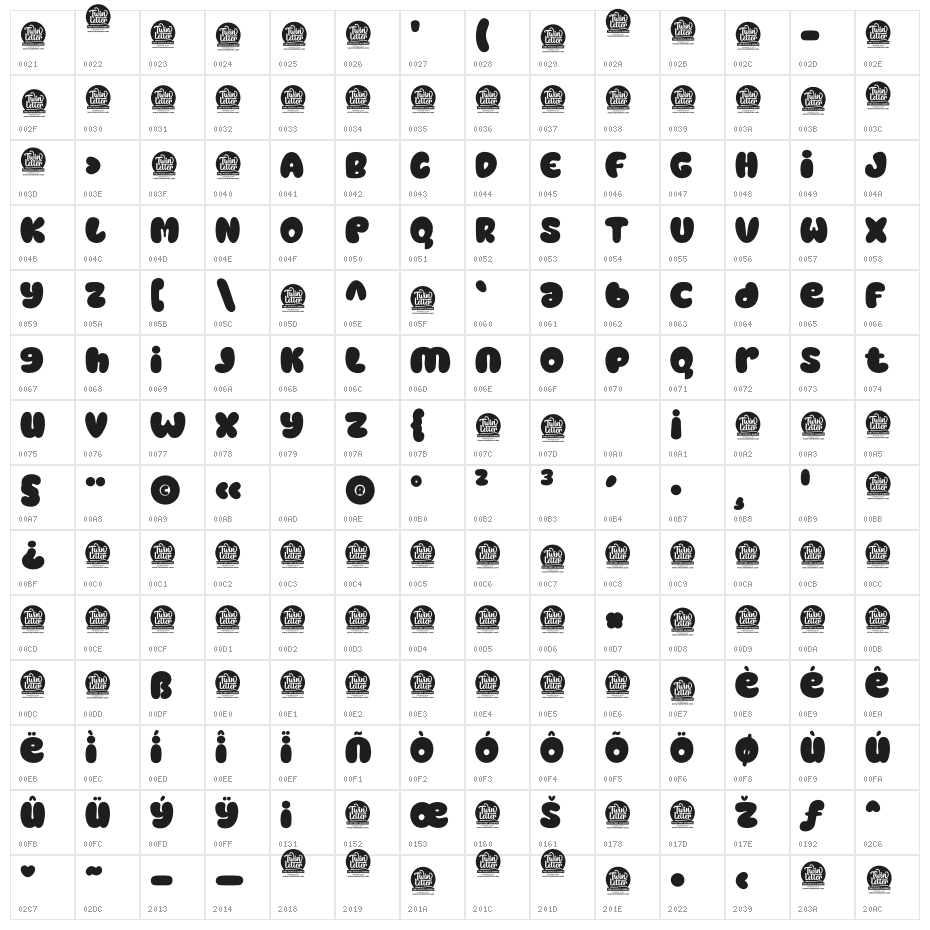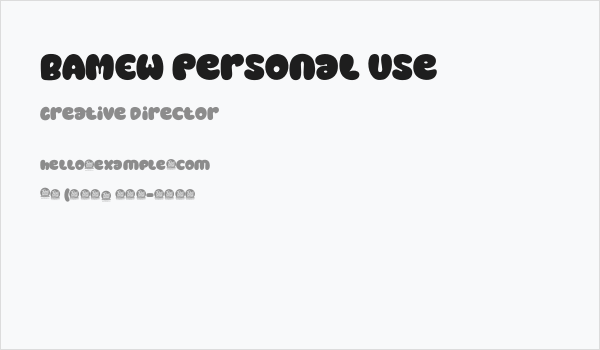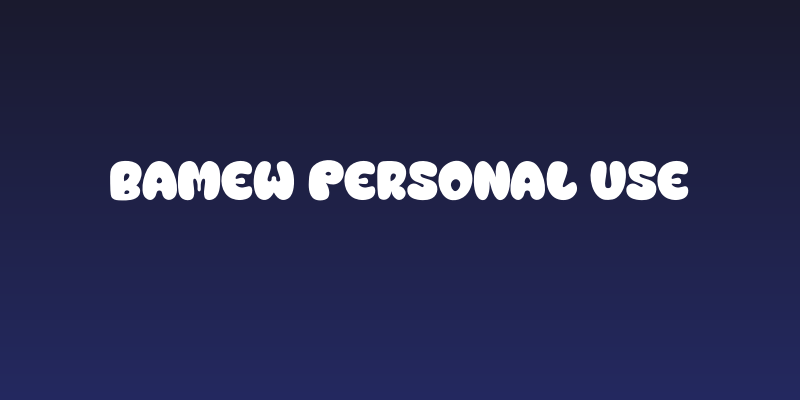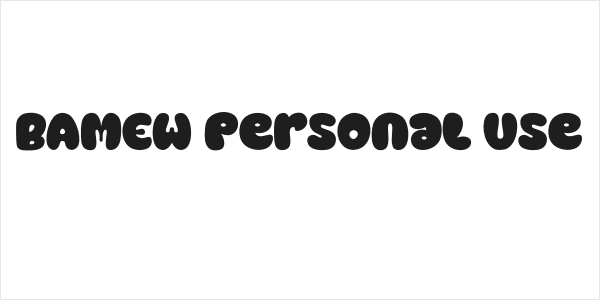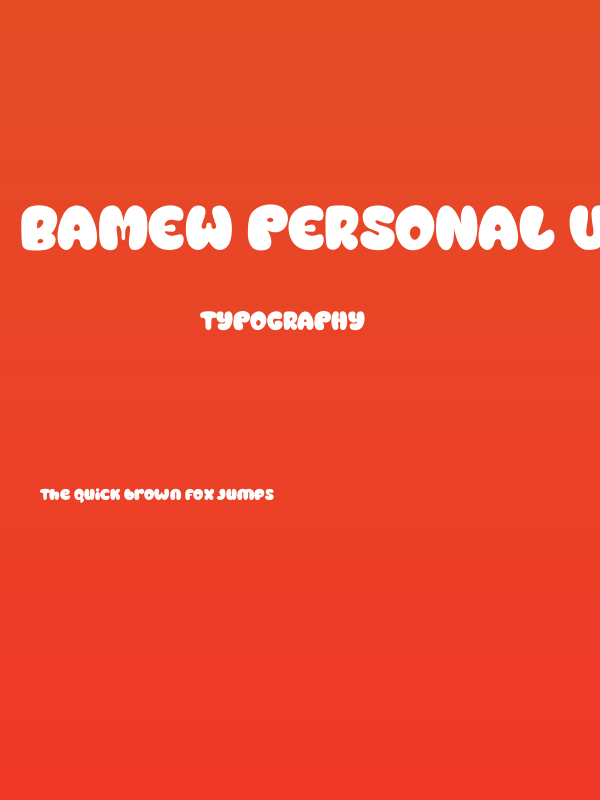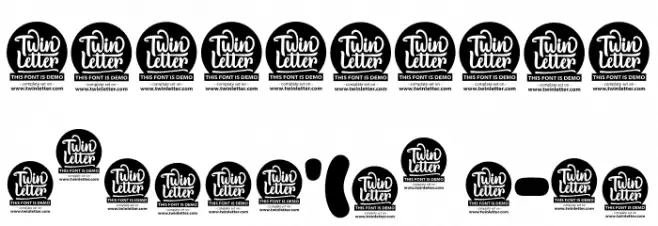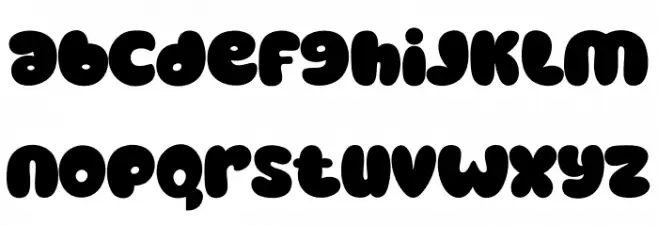
BAMEW Personal Use Font
BAMEW Personal Use Description
This font features a playful and bold design with rounded, bubble-like characters that convey a sense of fun and creativity. The letters are uniformly thick, creating a consistent and cohesive look across both uppercase and lowercase alphabets. The numbers and special characters follow the same style, ensuring a harmonious appearance throughout. The font's unique style makes it stand out, with its soft curves and lack of sharp edges, giving it a friendly and approachable feel. This design is ideal for projects that aim to capture attention and convey a lively, energetic vibe.
| Overall Style | Playful, Modern |